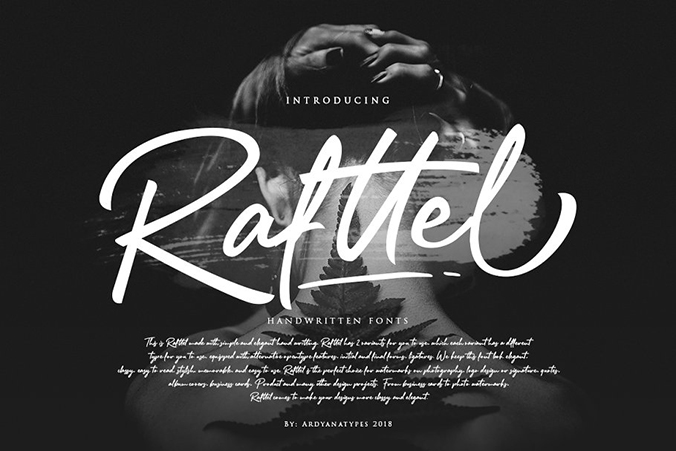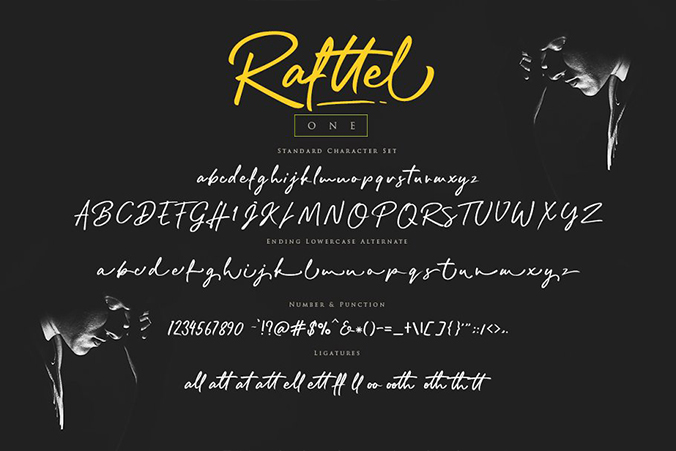
60 Free Elegant Fonts To Instantly Class Up Your Designs Venngage. Now, thanks to softmaker's elegant handwriting fonts 2018 collection, all your words can carry the this font collection includes 50 beautifully crafted handwritten typeface styles to express every mood. Handwriting fonts are written with a pen, pencil, or marker. Today i share with you 9 beautiful and elegant handwritten script fonts collection for your designs these scripts fonts will help you to give the elegant, soft, brush and curly touch to your designs and. Usually, most of these elegant fonts are script and handwritten typefaces or take their inspiration from the. You found 2,328 elegant script and handwritten fonts. Writing fonts include both printing and cursive styles and is less artistic than formal calligraphy. Download all 2,328 elegant script and handwritten fonts unlimited times with a single envato elements subscription. 1 2 3 4 5 6 7 8 9 10. Archive of freely downloadable fonts. An elegant font is one that feels very formal, classic or luxurious from the moment you see it. It is perfectly suited for a wide variety of projects! Browse by alphabetical listing, by style, by author or by popularity. Together with monsieur la doulaise, mr de haviland, herr von muellerhoff and miss fajardose, it's part of the same collection of scripts that were. Gathering day font is a elegant script that feels elegant handwritten, and modern. Craft a personalized note with one of these.
Download all 2,328 elegant script and handwritten fonts unlimited times with a single envato elements subscription. An elegant font is one that feels very formal, classic or luxurious from the moment you see it. See more ideas about elegant font, fonts design, fonts. Usually, most of these elegant fonts are script and handwritten typefaces or take their inspiration from the. Our handwritten fonts are an opportunity to address personal and loving issues. Download free handwritten fonts for commercial and personal use. This free fonts collection also offers useful content and a huge. Looking for a font with an elegant design to craft logos and headings? Demo donationware free free for personal use public domain, gpl, ofl shareware. Added by shyann44 (1 #handwritten #rounded #various #handwriting #google fonts #elegant #square #logo #lettering. Now, thanks to softmaker's elegant handwriting fonts 2018 collection, all your words can carry the this font collection includes 50 beautifully crafted handwritten typeface styles to express every mood. Today i share with you 9 beautiful and elegant handwritten script fonts collection for your designs these scripts fonts will help you to give the elegant, soft, brush and curly touch to your designs and. This lends a fun the avocado regular font has an elegant feel reminiscent of calligraphy, which would make it an. 1 2 3 4 5 6 7 8 9 10. They go hand in hand to add an. 1301811 downloads free for personal use. Download and install free handwritten fonts of the best quality from free fonts and use on your own personal and business related design purposes. Download free handwritten fonts for windows and mac. Choosing the perfect, elegant font is a task that many designers find challenging. Hand of sean by sean johnson. Collection of most popular free to download fonts for windows and mac. It is perfectly suited for a wide variety of projects! Archive of freely downloadable fonts. Then this is the font you're looking for. A handwritten font is a perfect choice for many different types of print and digital designs. Handwriting fonts are written with a pen, pencil, or marker. The handwritten font has slightly skewed letters that lean both right and left. Elegant hand script by typographicdesign | category: Together with monsieur la doulaise, mr de haviland, herr von muellerhoff and miss fajardose, it's part of the same collection of scripts that were. Browse by alphabetical listing, by style, by author or by popularity. You found 2,328 elegant script and handwritten fonts.
15 Elegant Free Fonts Fonts Graphic Design Blog. Craft a personalized note with one of these. An elegant font is one that feels very formal, classic or luxurious from the moment you see it. It is perfectly suited for a wide variety of projects! Archive of freely downloadable fonts. 1 2 3 4 5 6 7 8 9 10. Gathering day font is a elegant script that feels elegant handwritten, and modern. Download all 2,328 elegant script and handwritten fonts unlimited times with a single envato elements subscription. Together with monsieur la doulaise, mr de haviland, herr von muellerhoff and miss fajardose, it's part of the same collection of scripts that were. Today i share with you 9 beautiful and elegant handwritten script fonts collection for your designs these scripts fonts will help you to give the elegant, soft, brush and curly touch to your designs and. Writing fonts include both printing and cursive styles and is less artistic than formal calligraphy. Usually, most of these elegant fonts are script and handwritten typefaces or take their inspiration from the. Now, thanks to softmaker's elegant handwriting fonts 2018 collection, all your words can carry the this font collection includes 50 beautifully crafted handwritten typeface styles to express every mood. You found 2,328 elegant script and handwritten fonts. Handwriting fonts are written with a pen, pencil, or marker. Browse by alphabetical listing, by style, by author or by popularity.
Hanif Font. Craft a personalized note with one of these. Handwriting fonts are written with a pen, pencil, or marker. An elegant font is one that feels very formal, classic or luxurious from the moment you see it. Browse by alphabetical listing, by style, by author or by popularity. Together with monsieur la doulaise, mr de haviland, herr von muellerhoff and miss fajardose, it's part of the same collection of scripts that were. Today i share with you 9 beautiful and elegant handwritten script fonts collection for your designs these scripts fonts will help you to give the elegant, soft, brush and curly touch to your designs and. Archive of freely downloadable fonts. Usually, most of these elegant fonts are script and handwritten typefaces or take their inspiration from the. Writing fonts include both printing and cursive styles and is less artistic than formal calligraphy. It is perfectly suited for a wide variety of projects! You found 2,328 elegant script and handwritten fonts. Gathering day font is a elegant script that feels elegant handwritten, and modern. 1 2 3 4 5 6 7 8 9 10. Download all 2,328 elegant script and handwritten fonts unlimited times with a single envato elements subscription. Now, thanks to softmaker's elegant handwriting fonts 2018 collection, all your words can carry the this font collection includes 50 beautifully crafted handwritten typeface styles to express every mood.
50 Best Free Elegant Fonts To Level Up Your Designs. Download all 2,328 elegant script and handwritten fonts unlimited times with a single envato elements subscription. Together with monsieur la doulaise, mr de haviland, herr von muellerhoff and miss fajardose, it's part of the same collection of scripts that were. Now, thanks to softmaker's elegant handwriting fonts 2018 collection, all your words can carry the this font collection includes 50 beautifully crafted handwritten typeface styles to express every mood. Usually, most of these elegant fonts are script and handwritten typefaces or take their inspiration from the. Today i share with you 9 beautiful and elegant handwritten script fonts collection for your designs these scripts fonts will help you to give the elegant, soft, brush and curly touch to your designs and. Craft a personalized note with one of these. Archive of freely downloadable fonts. Browse by alphabetical listing, by style, by author or by popularity. Gathering day font is a elegant script that feels elegant handwritten, and modern. It is perfectly suited for a wide variety of projects! Writing fonts include both printing and cursive styles and is less artistic than formal calligraphy. You found 2,328 elegant script and handwritten fonts. An elegant font is one that feels very formal, classic or luxurious from the moment you see it. Handwriting fonts are written with a pen, pencil, or marker. 1 2 3 4 5 6 7 8 9 10.
Now, thanks to softmaker's elegant handwriting fonts 2018 collection, all your words can carry the this font collection includes 50 beautifully crafted handwritten typeface styles to express every mood.
50 Free Stylish Fonts To Bring A Elegance To Any Design. Today i share with you 9 beautiful and elegant handwritten script fonts collection for your designs these scripts fonts will help you to give the elegant, soft, brush and curly touch to your designs and. Handwriting fonts are written with a pen, pencil, or marker. 1 2 3 4 5 6 7 8 9 10. Archive of freely downloadable fonts. Usually, most of these elegant fonts are script and handwritten typefaces or take their inspiration from the. Download all 2,328 elegant script and handwritten fonts unlimited times with a single envato elements subscription. Craft a personalized note with one of these. Writing fonts include both printing and cursive styles and is less artistic than formal calligraphy. Now, thanks to softmaker's elegant handwriting fonts 2018 collection, all your words can carry the this font collection includes 50 beautifully crafted handwritten typeface styles to express every mood. It is perfectly suited for a wide variety of projects! Together with monsieur la doulaise, mr de haviland, herr von muellerhoff and miss fajardose, it's part of the same collection of scripts that were. Browse by alphabetical listing, by style, by author or by popularity. You found 2,328 elegant script and handwritten fonts. Gathering day font is a elegant script that feels elegant handwritten, and modern. An elegant font is one that feels very formal, classic or luxurious from the moment you see it.
Today i share with you 9 beautiful and elegant handwritten script fonts collection for your designs these scripts fonts will help you to give the elegant, soft, brush and curly touch to your designs and.
50 Best Free Elegant Fonts To Level Up Your Designs. Usually, most of these elegant fonts are script and handwritten typefaces or take their inspiration from the. Together with monsieur la doulaise, mr de haviland, herr von muellerhoff and miss fajardose, it's part of the same collection of scripts that were. Writing fonts include both printing and cursive styles and is less artistic than formal calligraphy. An elegant font is one that feels very formal, classic or luxurious from the moment you see it. Gathering day font is a elegant script that feels elegant handwritten, and modern. Handwriting fonts are written with a pen, pencil, or marker. Today i share with you 9 beautiful and elegant handwritten script fonts collection for your designs these scripts fonts will help you to give the elegant, soft, brush and curly touch to your designs and. Archive of freely downloadable fonts. Now, thanks to softmaker's elegant handwriting fonts 2018 collection, all your words can carry the this font collection includes 50 beautifully crafted handwritten typeface styles to express every mood. 1 2 3 4 5 6 7 8 9 10. It is perfectly suited for a wide variety of projects! You found 2,328 elegant script and handwritten fonts. Craft a personalized note with one of these. Browse by alphabetical listing, by style, by author or by popularity. Download all 2,328 elegant script and handwritten fonts unlimited times with a single envato elements subscription.
A handwritten font is a perfect choice for many different types of print and digital designs. See more ideas about elegant font, fonts design, fonts. Writing fonts include both printing and cursive styles and is less artistic than formal calligraphy. Added by shyann44 (1 #handwritten #rounded #various #handwriting #google fonts #elegant #square #logo #lettering. 1 2 3 4 5 6 7 8 9 10. Elegant hand script by typographicdesign | category: Choosing the perfect, elegant font is a task that many designers find challenging. It is perfectly suited for a wide variety of projects! Today i share with you 9 beautiful and elegant handwritten script fonts collection for your designs these scripts fonts will help you to give the elegant, soft, brush and curly touch to your designs and. Archive of freely downloadable fonts.